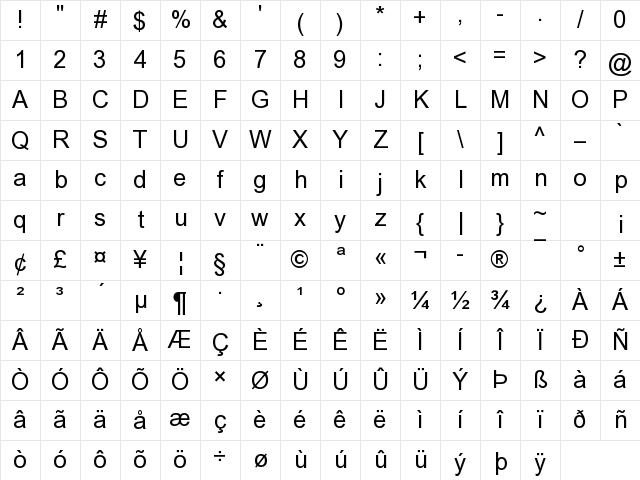
Zakharif Regular
Foundry: Axis SoftMedia Pvt. Ltd.
Designer: Syed Manzar Hasan Zaidi
Design Context for Zakharif
Zakharif is a composed and adaptable typeface that performs quietly and consistently across a wide range of design contexts.